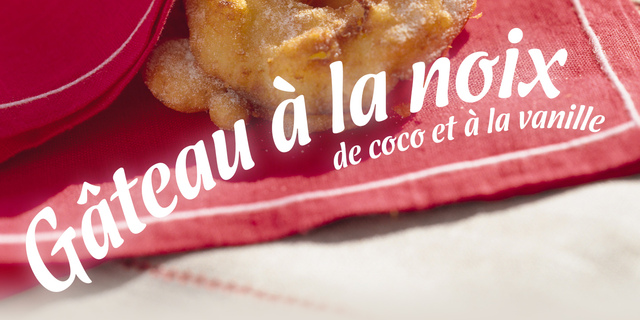
About Dessert Script is a display font in one style based on flat brush calligraphy. It combines the smoothness of contours, overall dynamics of text setting, open and friendly nature. Dessert Script is good for short inscriptions, greetings, food packaging and menus. The typeface was designed by Alexander Lubovenko and released by Paratype in 2015.
Associations for font family Dessert ScriptTypeface personality and character:
delicious, juicy, seductive, Soft, smooth, kind, friendly, appetizing, healthy, flexible, affable, splashy, notable, hot, sultry, beautiful, festive, expensive, fresh, sweet, polite, glossy, brilliant, passionate, sexy, fantastic, tropical, Glamorous
recreation, food, cafe, dessert, entertainment, celebration, bakery, decoration, confectioner, bun, sweets, restaurant, retail, liquor, cocktail, beauty, gifts, coffee, dinner, Christmas, sea, selfie, bar, smoothie, sauce, ketchup, fast food, chips, shawarma, Instagram, glamour, graphics, illustration, evening Typeface associated with age: